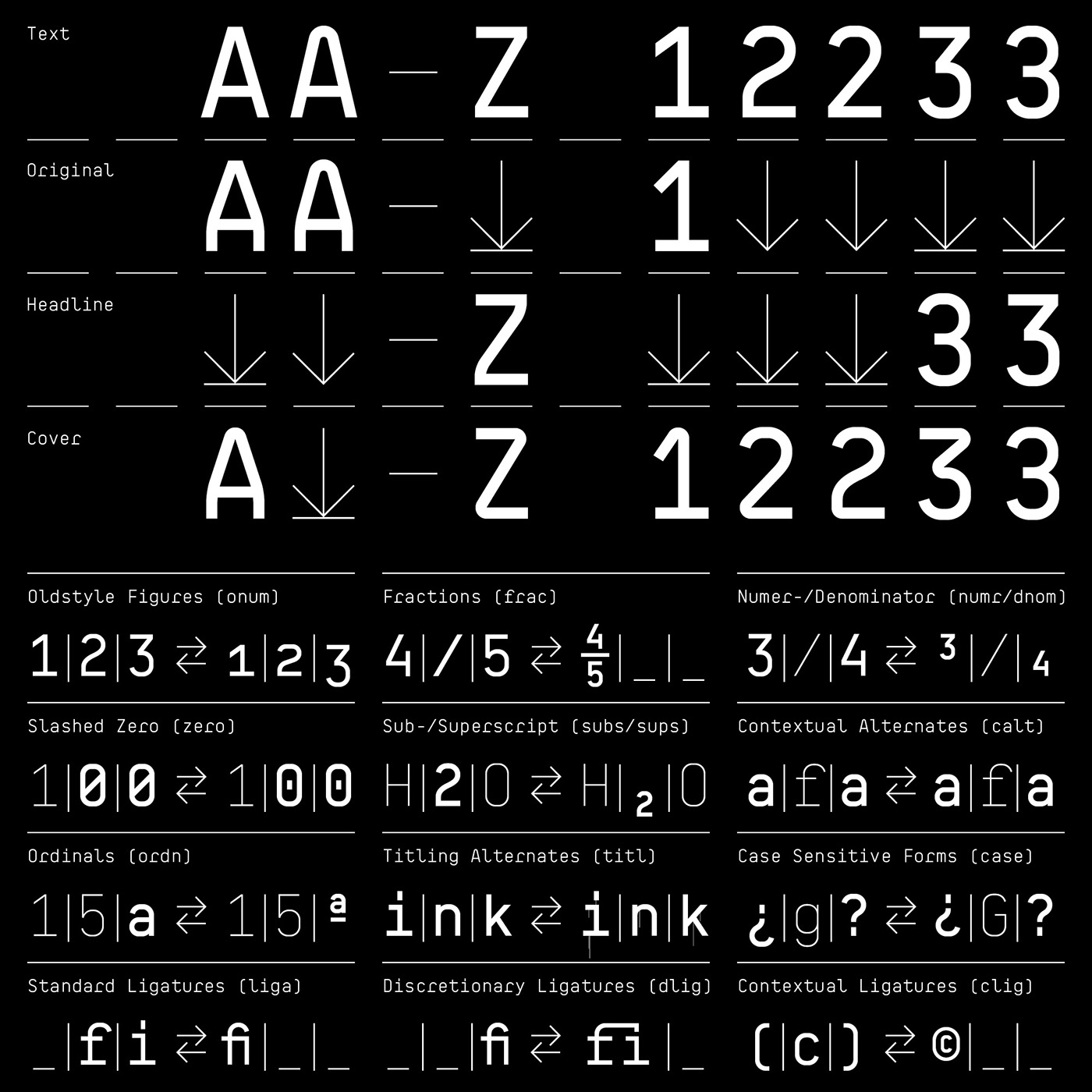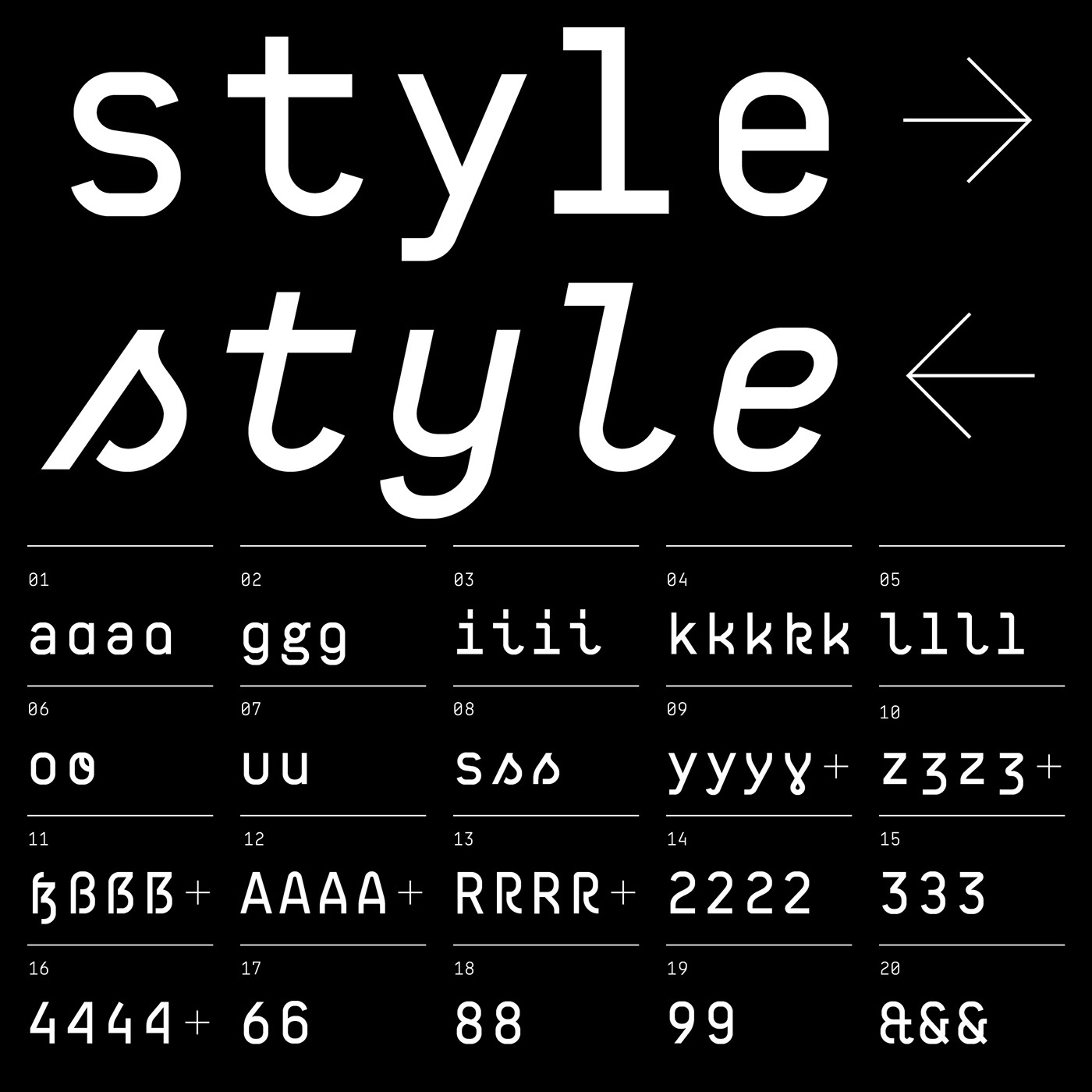
BB Manual Mono™ (Std/Pro) visualizes the work of painters: craftsmanship, precision, professionalism and their tools. The special features of the font emphasize the work process: accuracy (individual modularity), alignment (contextual monoline), flow (visible process).
● 5 Variants: Text, Italic, Standard, Headline, Cover
● 40 OpenType features/Style
● 60 Styles
● 100 Stylistic-Sets (20/Variant)
● 122 Languages Support (Latin, Greek, Cyrillic)
● 86,100 Glyphs (1,435/Style)